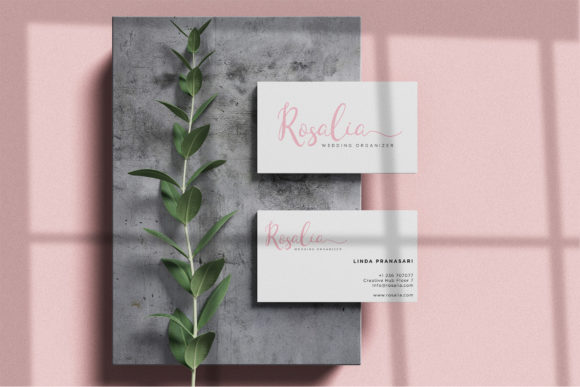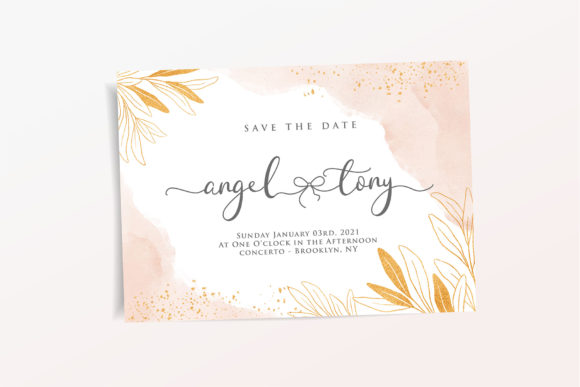
Lovestory Font
db-ku.com - Script & Handwritten -- Lovestory is a gorgeous way to celebrate all things love. This gorgeous and romantic script is full of love and will elevate any craft design to the highest level!